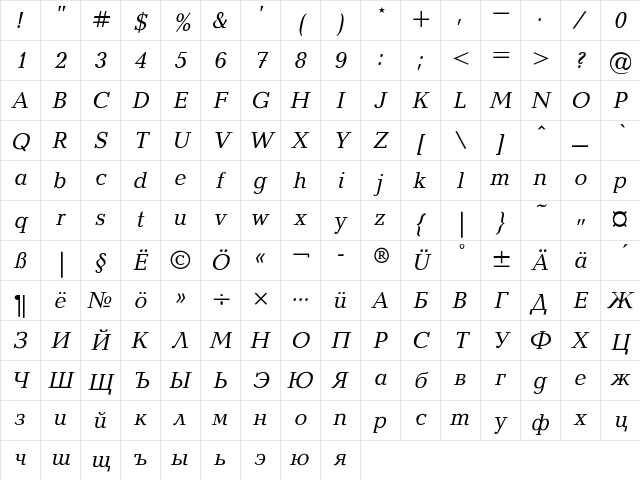
Baltica Italic
Design Context for Baltica
Baltica is a composed and adaptable typeface that performs quietly and consistently across a wide range of design contexts. The slanted form adds forward momentum and visual energy.